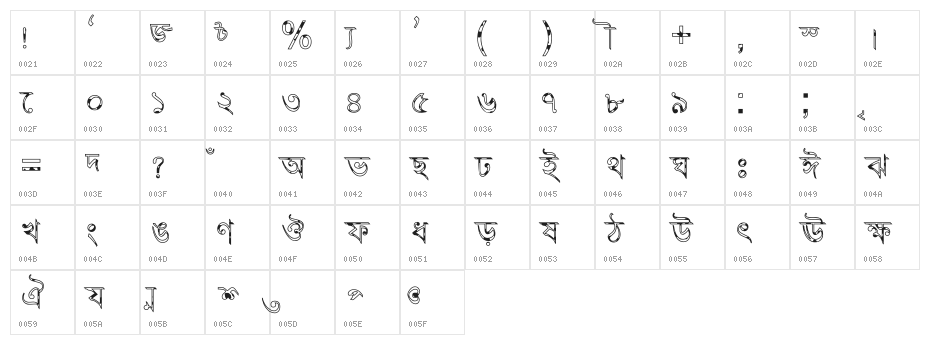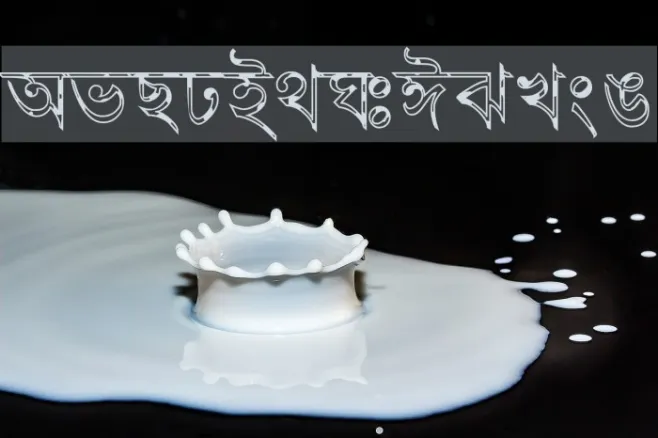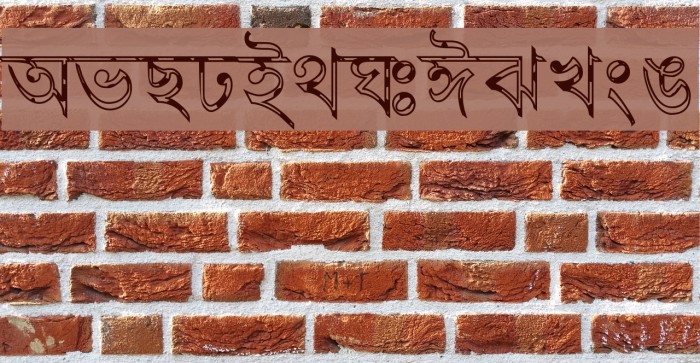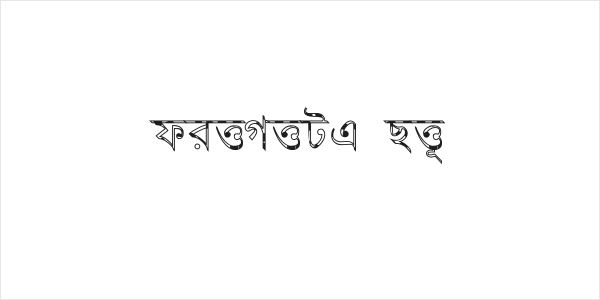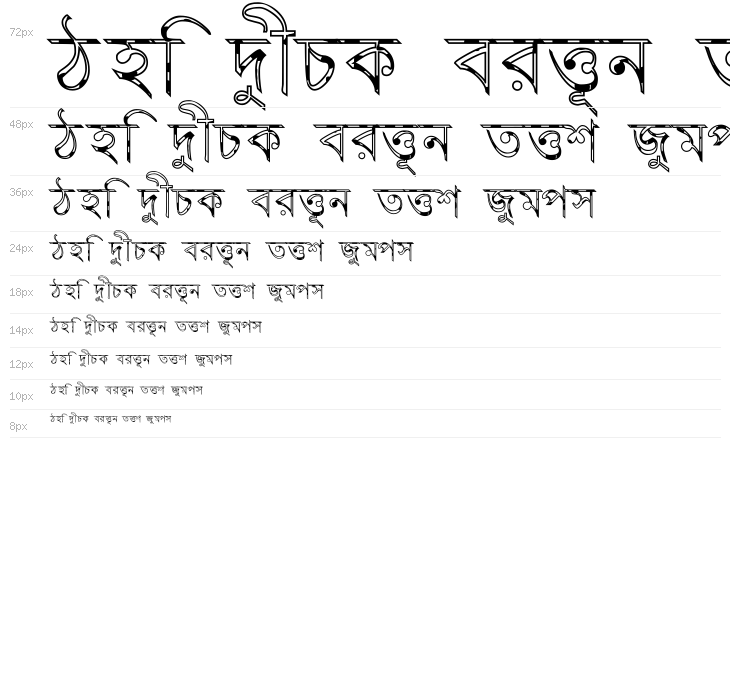
Progoty Cow Font
Progoty Cow Description
This font features a unique and decorative style with intricate detailing and flourishes that give it a traditional and artistic appearance. The characters are bold and have a strong presence, making them suitable for eye-catching designs. The strokes are varied, with some parts being thicker and others thinner, creating a dynamic and visually interesting contrast. The overall design is reminiscent of calligraphic or handwritten styles, with a touch of elegance and sophistication. This font is particularly well-suited for projects that require a cultural or historical aesthetic, as it evokes a sense of heritage and craftsmanship.